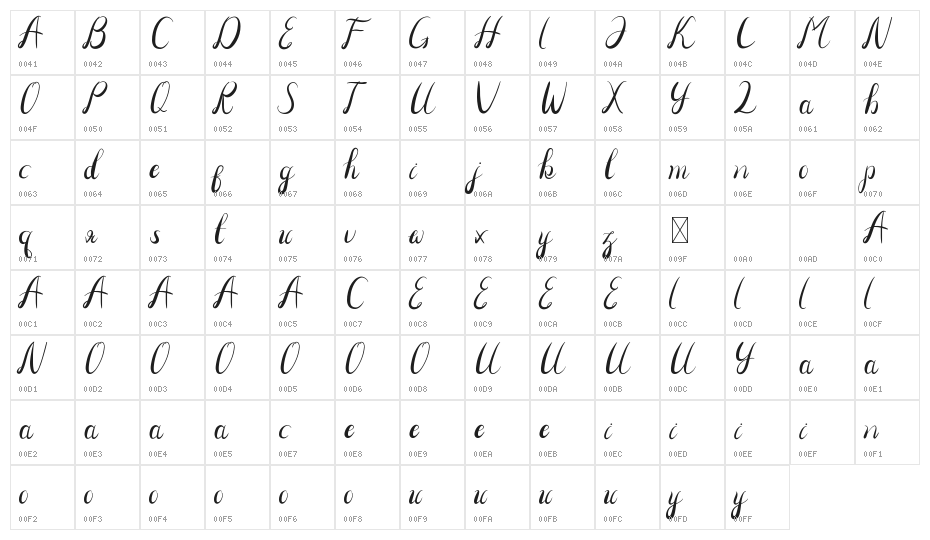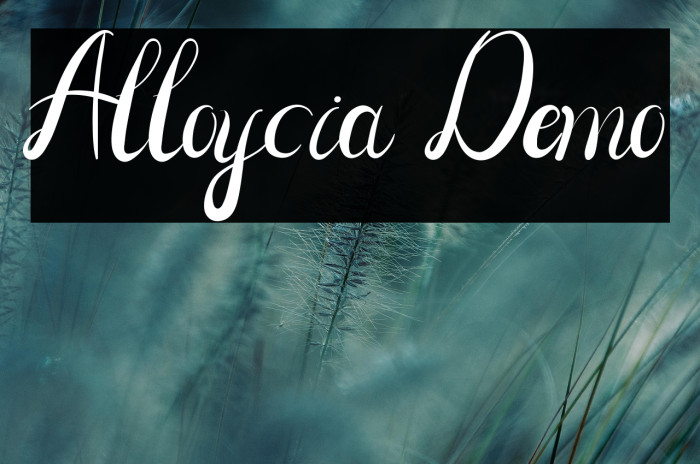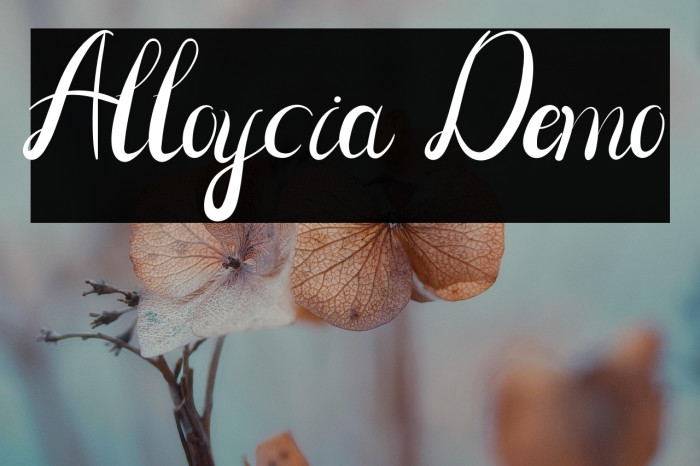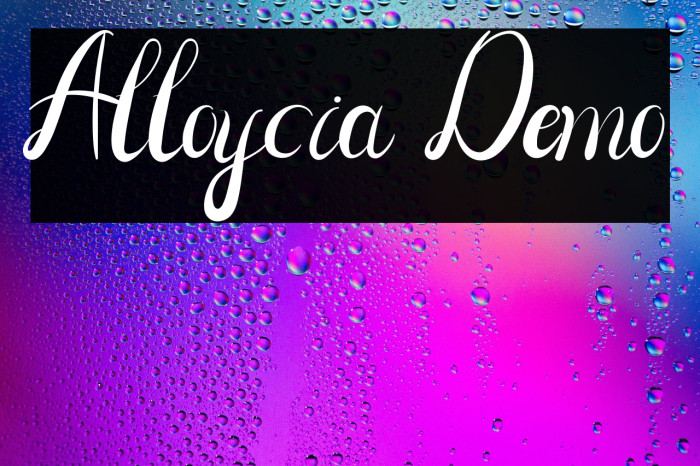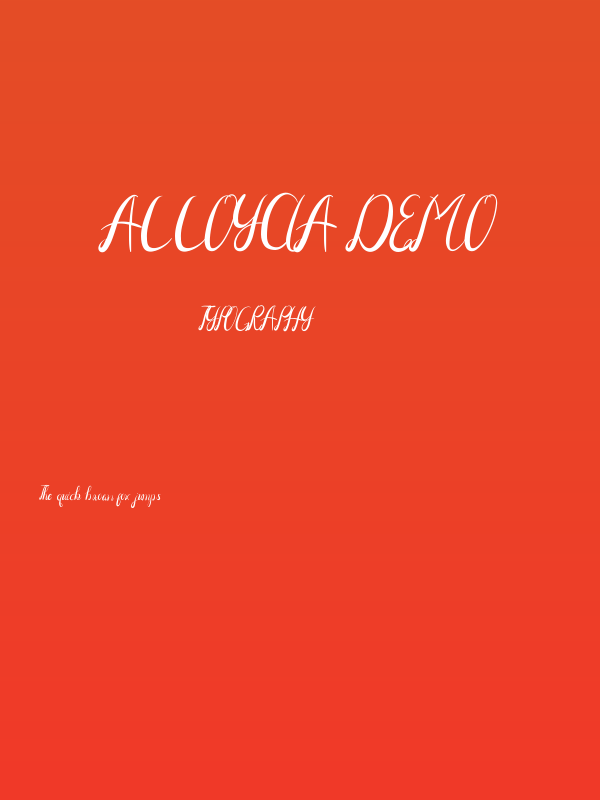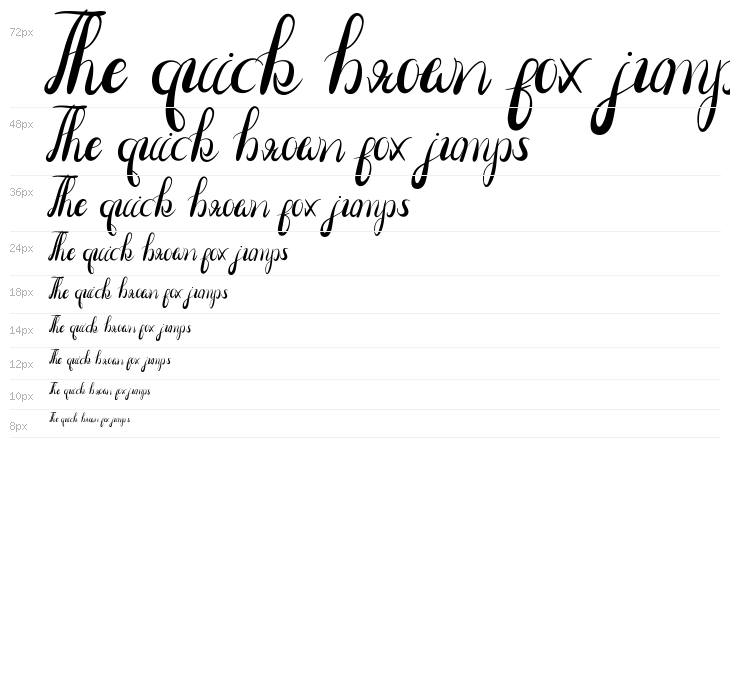
Alloycia Demo Font
Alloycia Demo Description
This font features an elegant and flowing script style, characterized by its smooth, cursive strokes and graceful loops. The uppercase letters are tall and slender, with a slight slant that adds a sense of motion and fluidity. The lowercase letters maintain a consistent style, with delicate connections between characters that enhance the overall cohesiveness. The font exhibits a high contrast between thick and thin strokes, adding to its sophisticated appearance. It is well-suited for projects that require a touch of elegance and refinement.
| Proposed Projects | Ideal for wedding invitations, elegant branding, greeting cards, and upscale packaging. |